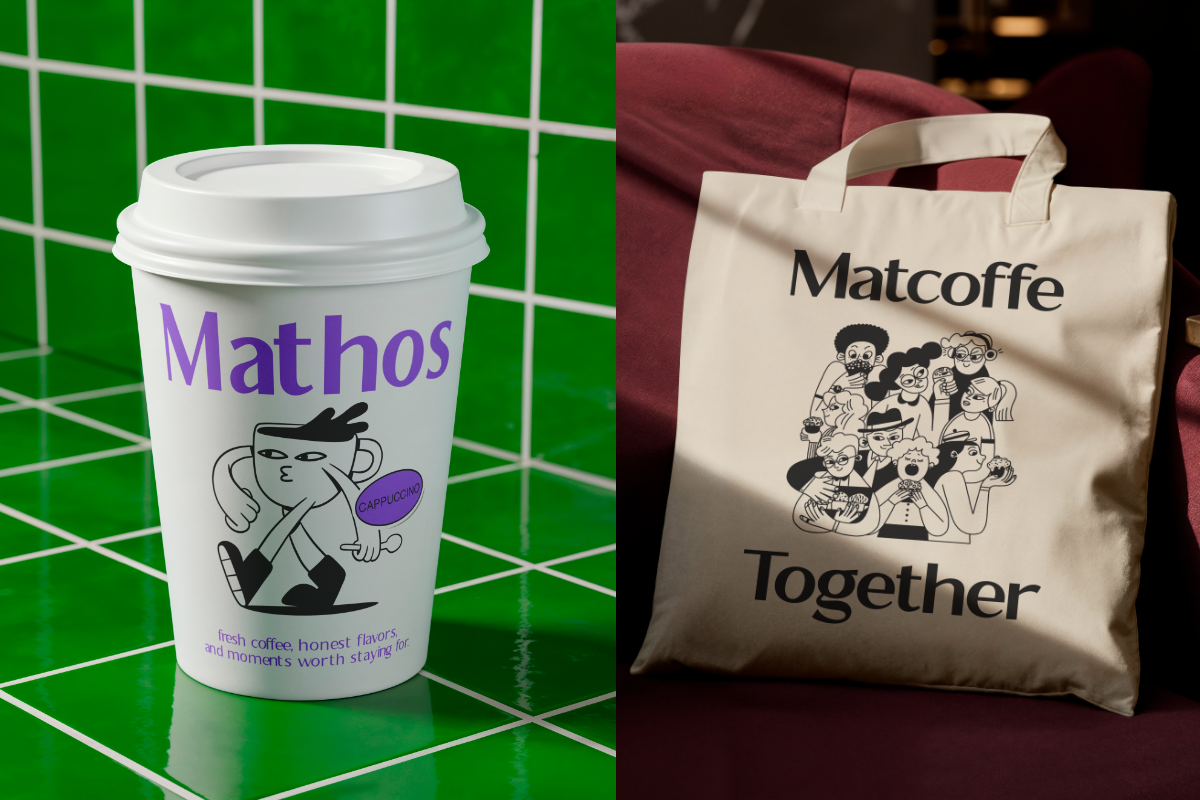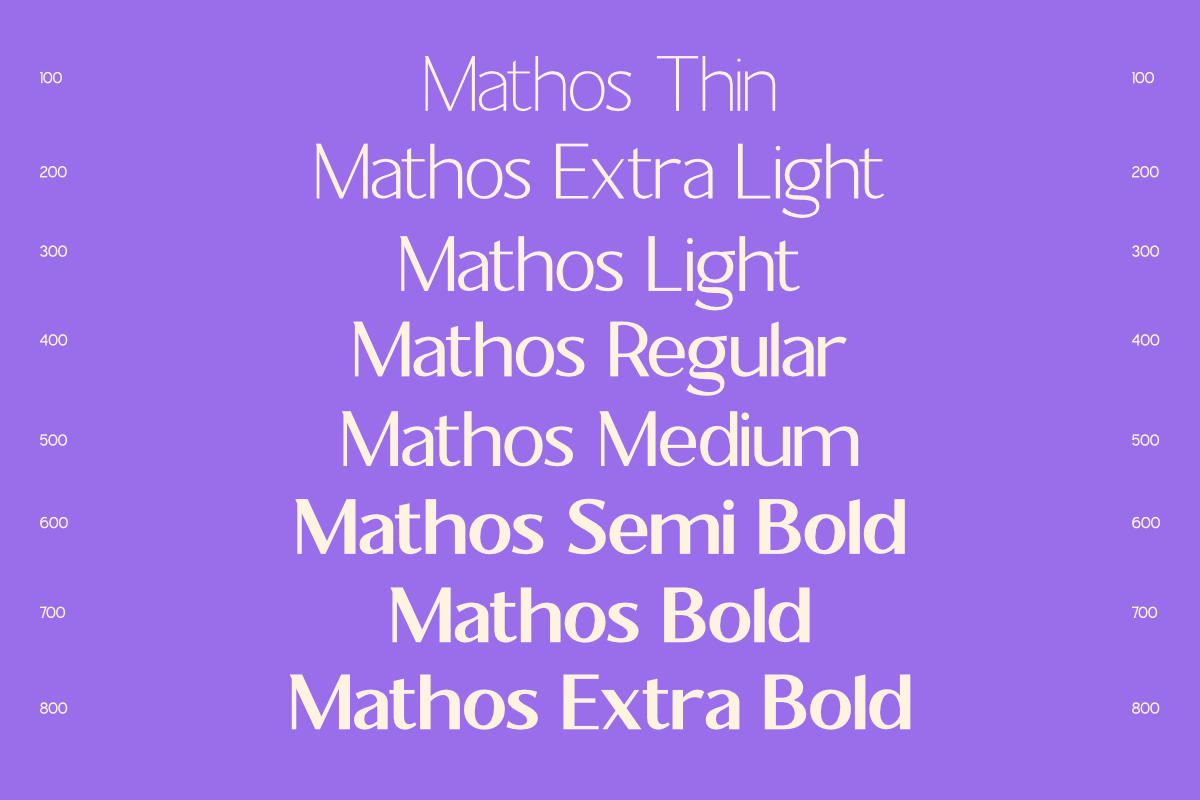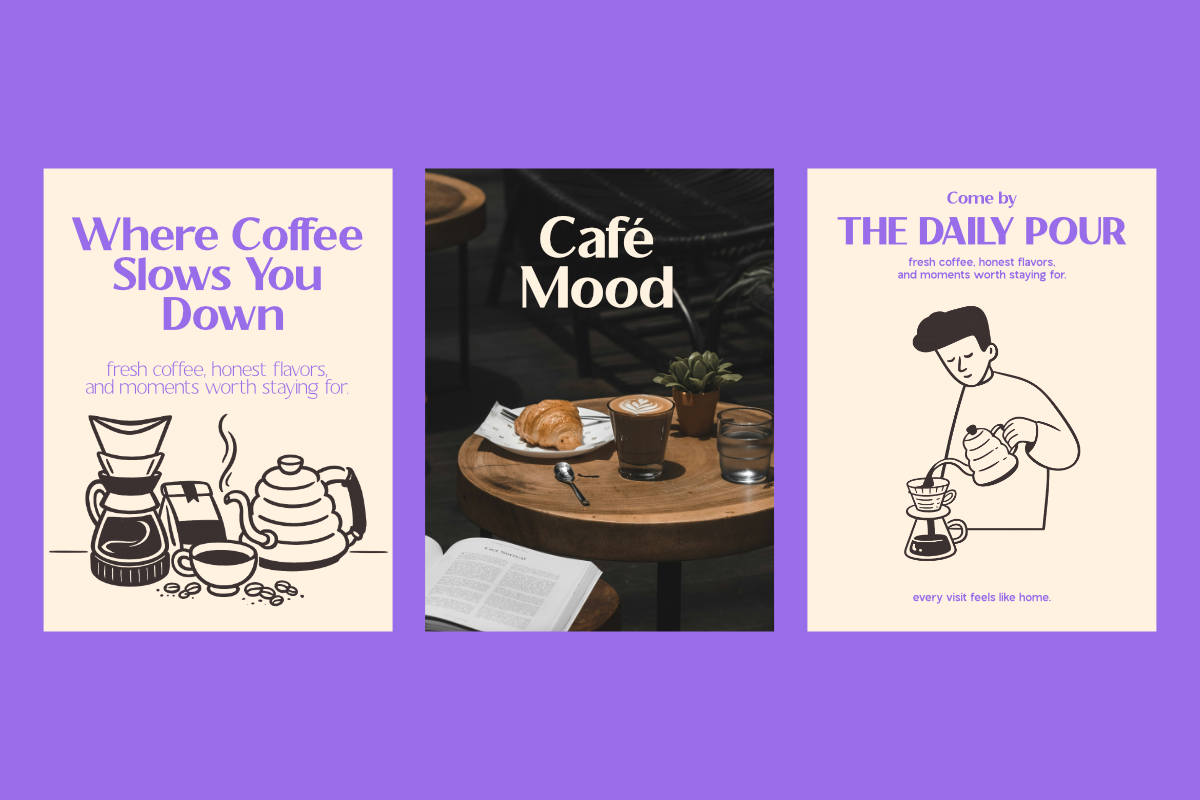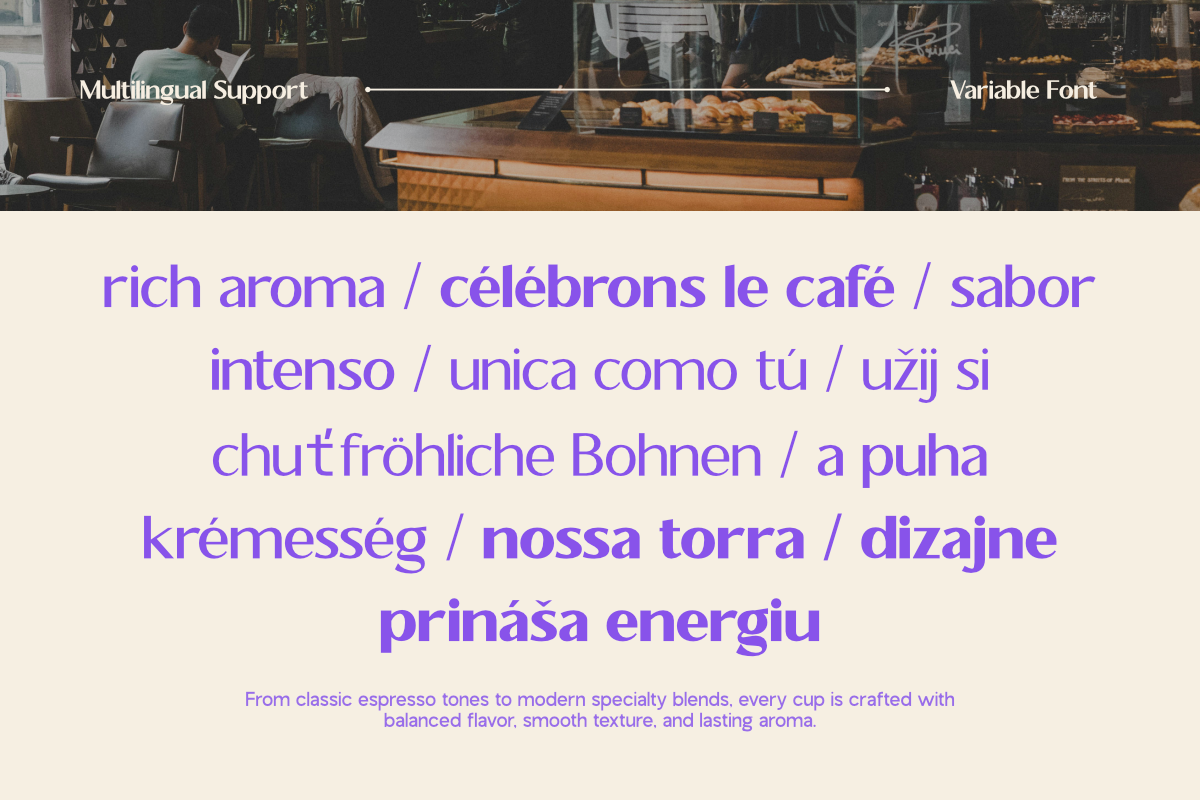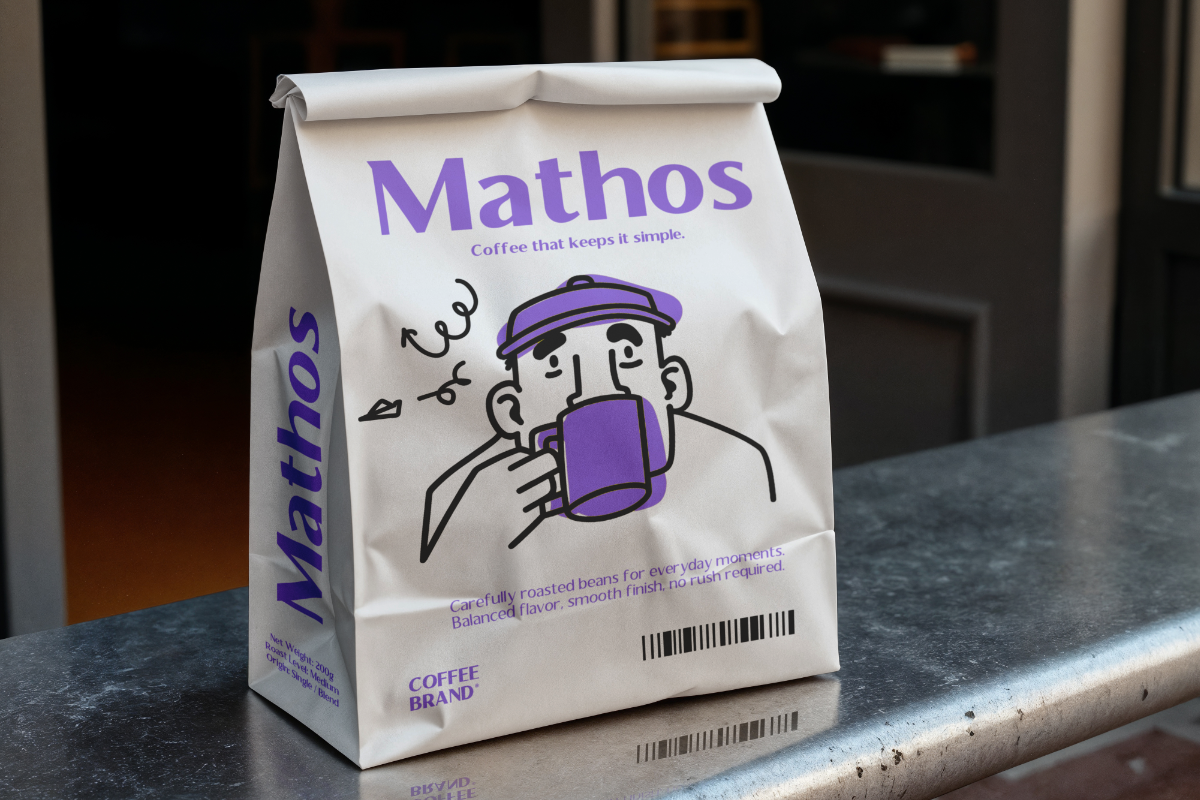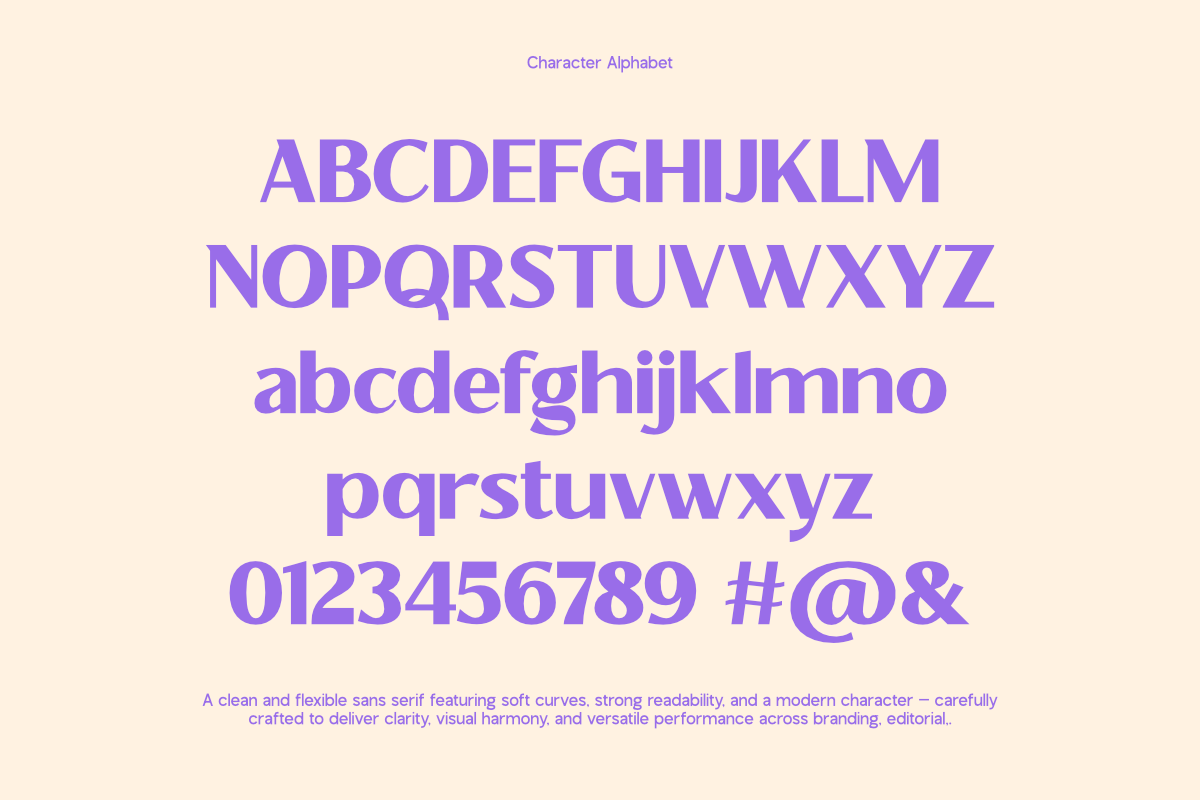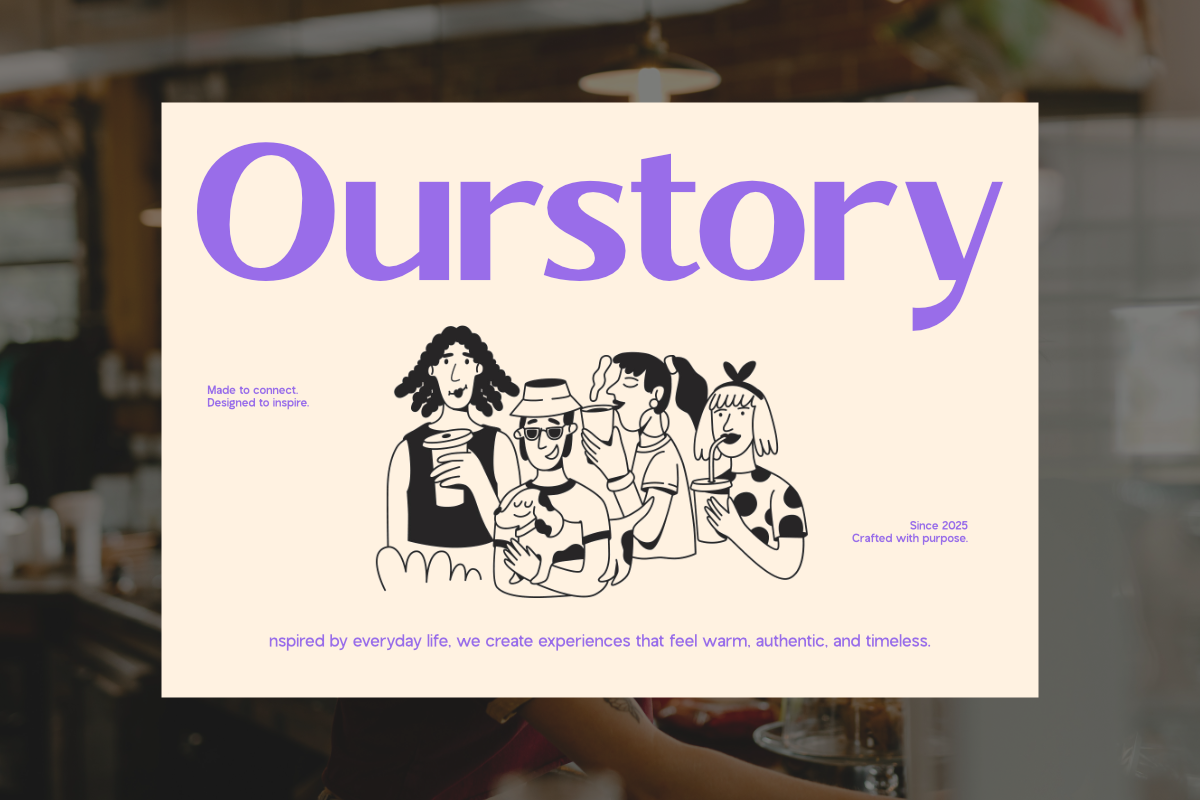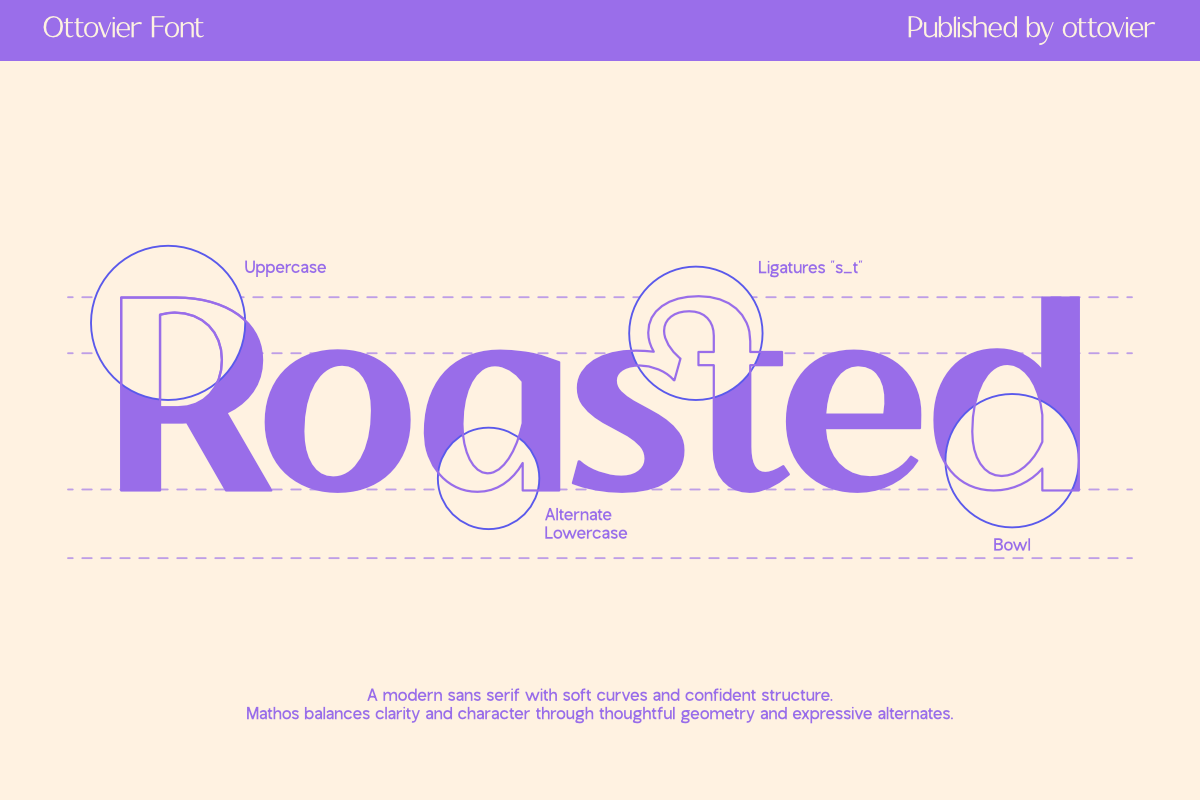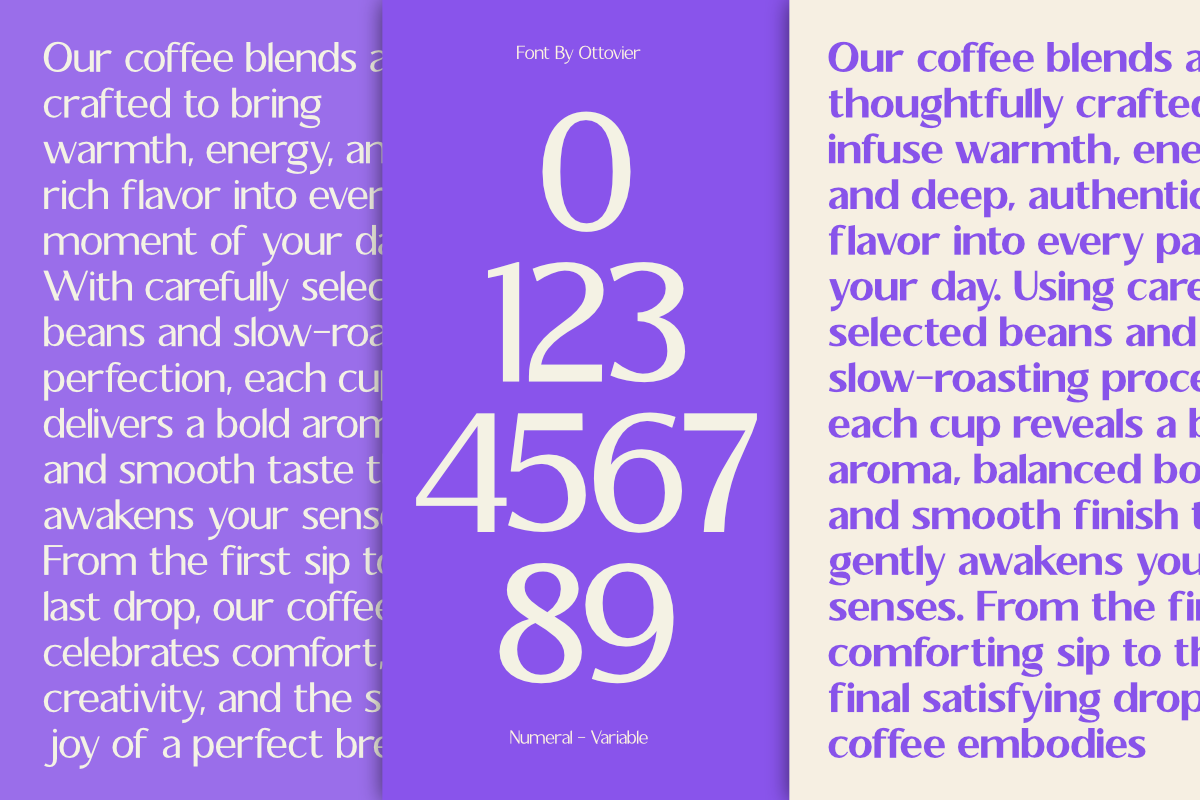
Mathos – Sans Display Family
Mathos is a modern display sans serif font designed for bold visual impact and clean readability. Built with strong geometry and smooth proportions, Mathos works perfectly for headlines, posters, branding, editorial layouts, and digital interfaces.
With its flexible weight range and contemporary character shapes, Mathos adapts seamlessly across both print and digital media—making it a versatile choice for designers who value clarity and style.
✦ Key Features
Display Sans Serif Font Family
8 Weights — from Thin to Extra Bold
Variable Font Included
OpenType Features
Carefully crafted kerning & spacing
Optimized for print & editorial use
✦ Ideal For
Branding & logo design
Posters & headlines
Editorial & magazine layouts
Social media & marketing visuals
Web & UI design
Mathos delivers a confident, modern voice—minimal yet expressive—perfect for projects that demand strong typographic presence without sacrificing elegance.